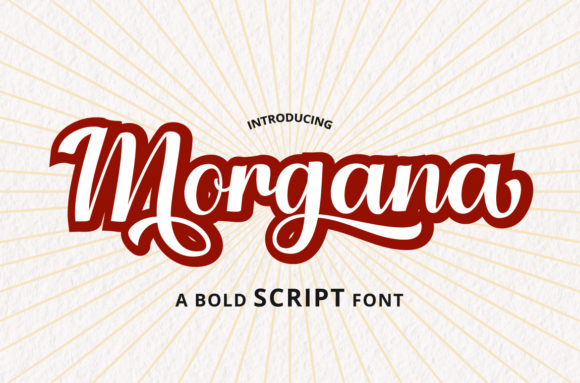
Unleash the beauty of Morgana, a stunning handwritten font that captures the spirit of classic elegance. Its bold strokes and retro charm add a touch of nostalgia to any design.
Morgana's strength and confidence shine through in every character, making it the perfect choice for headlines, logotypes, and projects seeking a touch of vintage flair. Its dynamic energy will bring life to your designs, leaving an unforgettable impression.
Picture your wedding invitations adorned with the intricate details of Morgana. Its timeless beauty will elevate your special day, embodying the romance and elegance of your love story.
Step into the world of Morgana and let your creativity flow. Its versatility allows you to craft designs that reflect your unique style, whether it's a charming logo, a heartfelt poster, or an eye-catching social media post.
Embrace the power of Morgana and transform your designs into timeless masterpieces. Its retro charm will captivate your audience, creating a lasting connection that speaks to the heart.